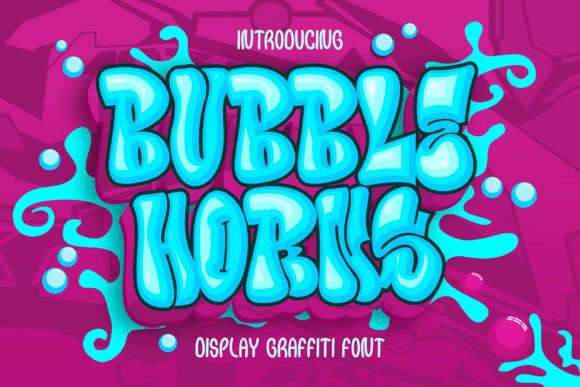
Introducing Bubble Horns Graffiti Font - the ultimate choice for anyone looking to make a bold statement and add a touch of edginess to their designs. Created by Cikareotype, this urban graffiti font is characterized by its bubble edges and bold look, making it the perfect fit for music posters, apparel designs, shirts, and streetwear.
When it comes to urban graffiti themes, Bubble Horns stands out from the crowd. Its unique style captures attention and instantly elevates the visual impact of any project. Whether you're aiming to create a strong and powerful statement or simply want to infuse your designs with a rebellious attitude, Bubble Horns is the font that delivers.
Imagine the impact your music posters will have when adorned with Bubble Horns. Its captivating style will draw in viewers, making them feel the energy and passion behind your music. Want to create apparel designs that stand out in a sea of monotony? Bubble Horns is the answer. Its eye-catching and distinctive appearance will ensure that your merchandise grabs attention and leaves a lasting impression.
But Bubble Horns isn't just for music and fashion enthusiasts. Its versatility extends to a wide range of projects. Whether you're designing logos, branding materials, or social media graphics, this font will inject a dose of creativity and urban flair into your work. Your designs will exude confidence and authenticity, setting you apart from the competition.
Don't settle for ordinary fonts when you can unleash the power of Bubble Horns. Its captivating bubble edges, bold look, and urban graffiti vibes make it the best font for T-shirt text. So, why wait? Download Bubble Horns today and let your creativity run wild!